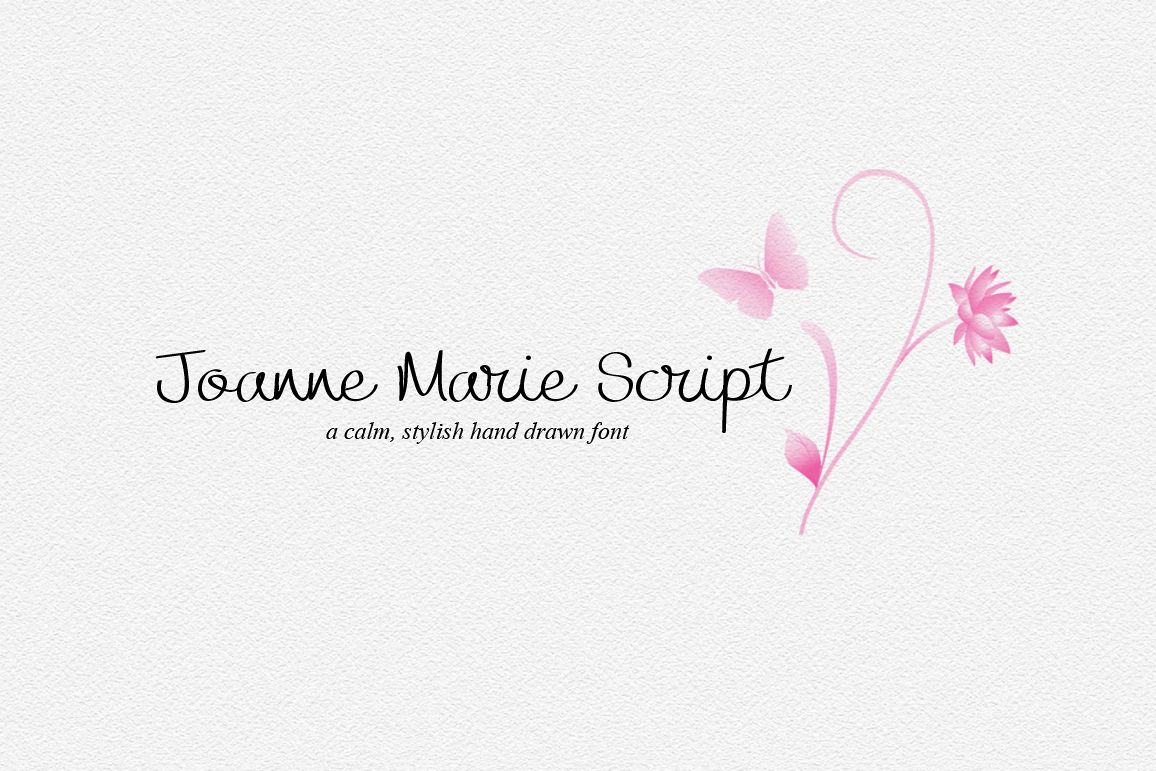
Joanne Marie Script is a handwritten, elegant and flowing font based on my own handwriting.
It can be used for a wide range of projects, such as logo designs, party & wedding invitations, t-shirt designs, signs, magazine design, greetings cards, poster design and much more!